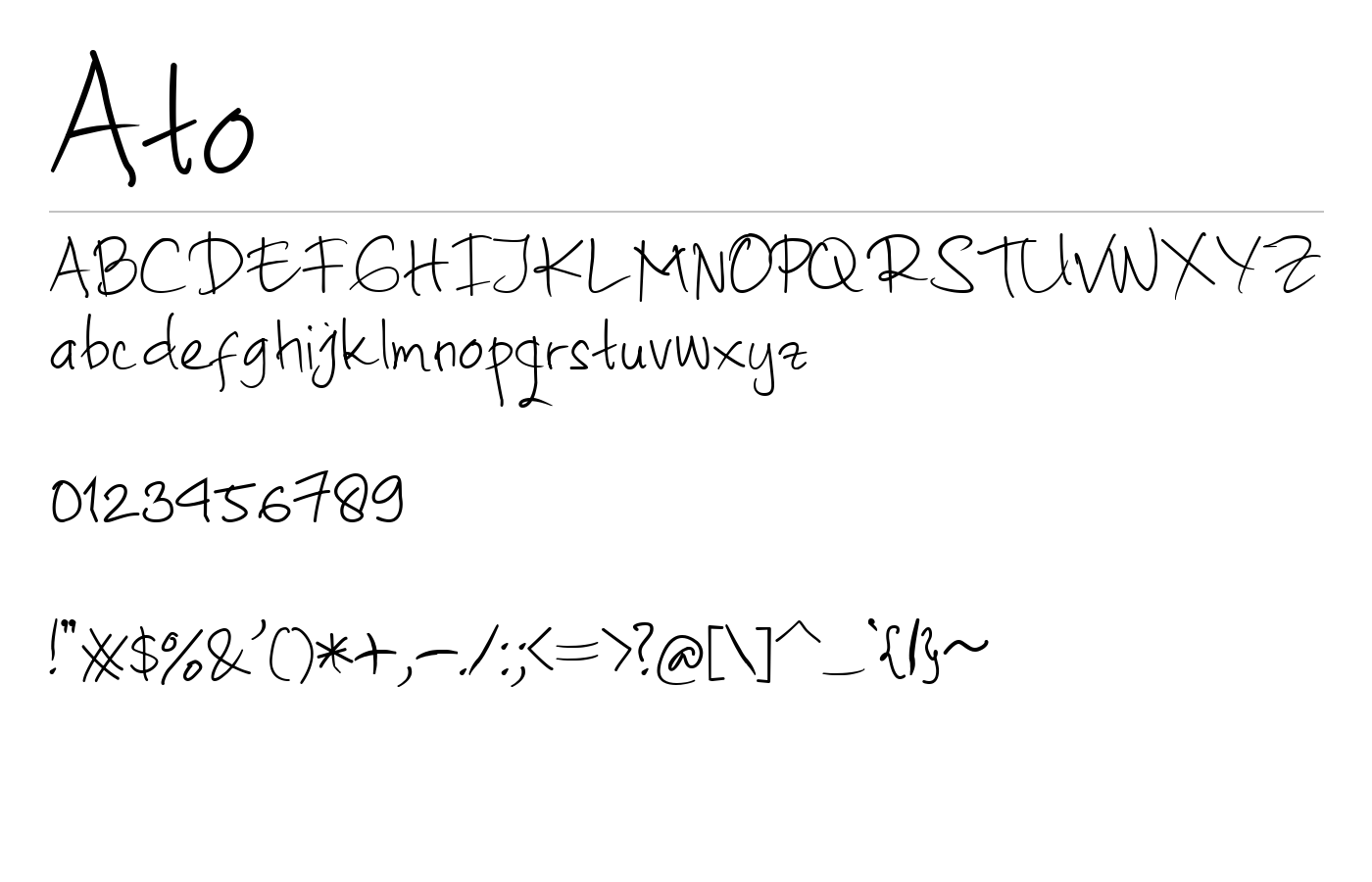
Ato is a playful, handwritten sans serif font with a light weight and casual, airy spacing that mimics natural pen strokes. Its irregular, slightly whimsical letterforms and variable line thickness give it a friendly and approachable personality, perfect for informal design projects, creative branding, and personal invitations. This font works well where a personal, authentic touch is needed, adding charm and individuality without sacrificing readability.
Ato Font